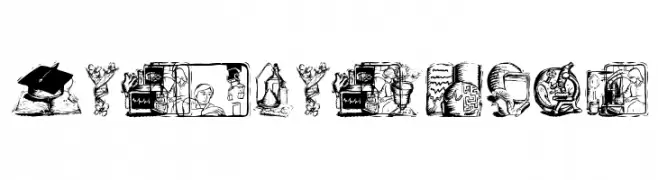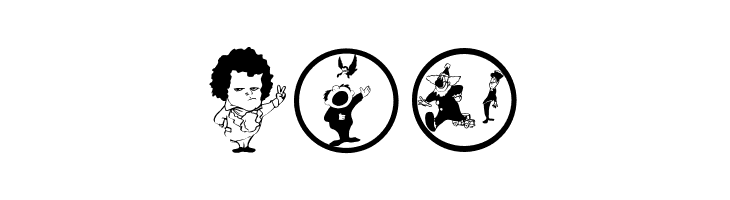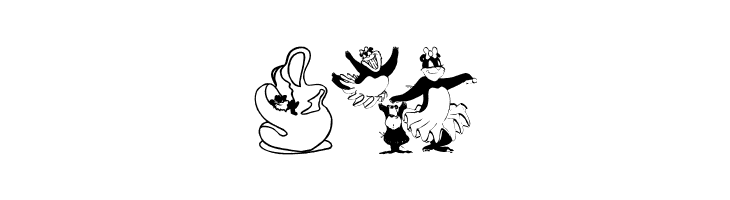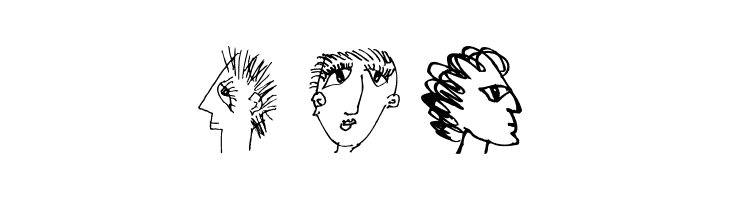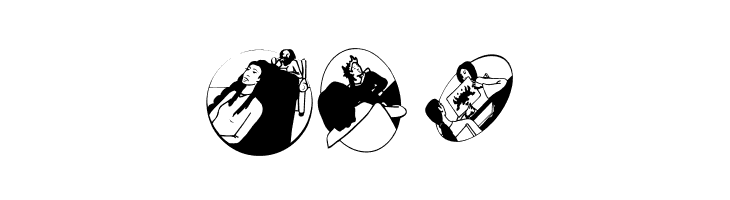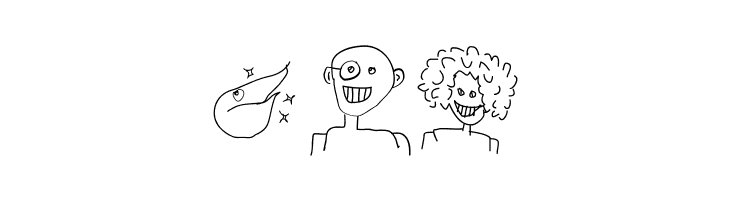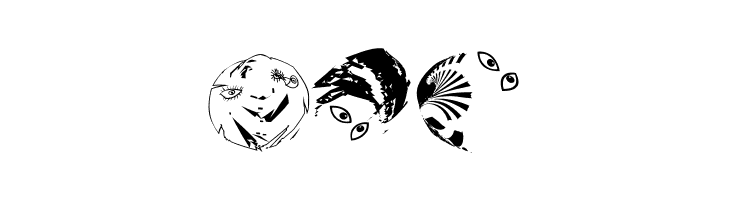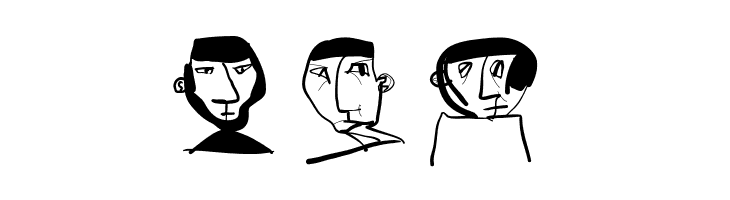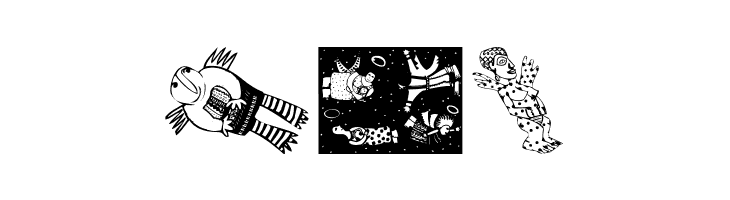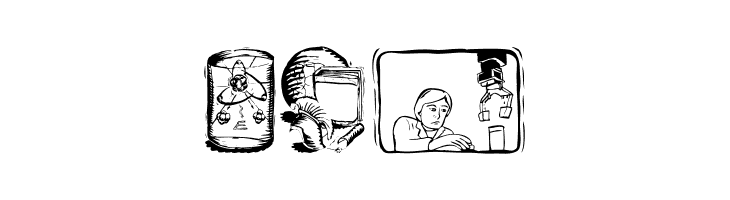
• ArtistsOne
A playful, cartoon-themed decorative font with illustrated characters for each glyph.
• ArtistsTwo
Cartoonish, narrative font with each character depicted as a lively illustration.
• HeadSketchesMK
Hand-drawn, sketchy font made of expressive head illustrations.
• RohrschachEtcetera
Illustrative, hand-drawn font with each character as a unique scene in a circle.
• HappyBirthday
A whimsical, hand-drawn font featuring birthday-themed illustrations.
• FraktalConPablos
An abstract, artistic design with fractal-like patterns.
• HarpersBizarre
• AfricanAngelsAndSpirits
Decorative font with African and spiritual icon illustrations.
• EinsteinsWorlds
A science-themed illustrative display font with Einstein and physics motifs.
• GalleriaGeometricaB
Abstract geometric font with intersecting lines and squares.